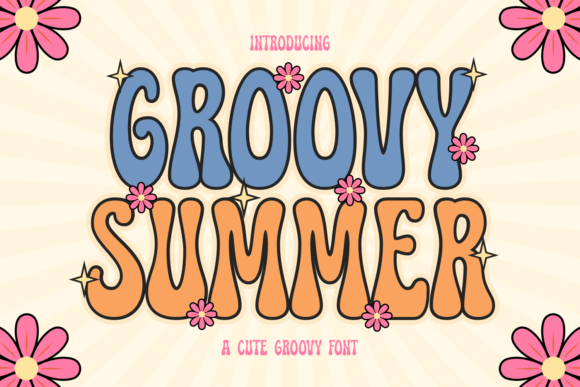
Groovy Summer Font: Elevate Your Designs with a Playful and Lively Typeface
Are you looking for a font that embodies the fun and energy of the summer season? Look no further than the Groovy Summer Font! This playful and lively display typeface is perfect for designers and crafters who want to add a touch of retro grooviness to their projects. In this article, we’ll dive into the features and benefits of the Groovy Summer Font, and explore how you can use it to elevate your designs.
What is Groovy Summer Font?
Groovy Summer is a display typeface that is designed to capture the essence of retro fun and energy. Its bouncy letterforms and dynamic strokes are reminiscent of the groovy styles of the 1960s and 1970s, but with a modern twist. The font is perfect for headlines, posters, and branding projects, where you want to make a bold statement and grab the attention of your audience.
Key Features of Groovy Summer Font
- Playful and lively design: The Groovy Summer Font features a playful and lively design that is perfect for summer-themed projects.
- Bouncy letterforms: The font’s bouncy letterforms add a touch of fun and energy to your designs.
- Dynamic strokes: The dynamic strokes of the font give it a sense of movement and playfulness.
- Retro grooviness: The font’s retro-inspired design is perfect for projects that require a touch of nostalgia.
- Easy to read: Despite its playful design, the Groovy Summer Font is easy to read, even at smaller sizes.
Benefits of Using Groovy Summer Font
So why should you use the Groovy Summer Font in your designs? Here are just a few benefits:
- Adds a touch of fun and energy: The Groovy Summer Font is perfect for designers who want to add a touch of fun and energy to their designs.
- Perfect for summer-themed projects: The font’s summer-inspired design makes it perfect for summer-themed projects, such as beach posters, summer festival flyers, and more.
- Versatile: The Groovy Summer Font can be used for a wide range of projects, from headlines and posters to branding and packaging.
- Easy to pair with other fonts: The font’s playful design makes it easy to pair with other fonts, allowing you to create unique and interesting typography combinations.
How to Use Groovy Summer Font in Your Designs
So how can you use the Groovy Summer Font in your designs? Here are a few ideas:
- Headlines and titles: Use the Groovy Summer Font to create bold and eye-catching headlines and titles.
- Posters and flyers: The font is perfect for posters and flyers, where you want to grab the attention of your audience.
- Branding and packaging: Use the Groovy Summer Font to add a touch of fun and energy to your branding and packaging.
- Social media graphics: The font is perfect for social media graphics, where you want to create engaging and eye-catching content.
Tips for Getting the Most Out of Groovy Summer Font
Here are a few tips for getting the most out of the Groovy Summer Font:
- Use it sparingly: While the Groovy Summer Font is playful and fun, it can be overwhelming if used too much. Use it sparingly to create emphasis and add visual interest.
- Pair it with other fonts: The Groovy Summer Font pairs well with other fonts, so don’t be afraid to experiment with different combinations.
- Experiment with colors: The font looks great in bright and bold colors, so don’t be afraid to experiment with different color combinations.
| Font Name | Groovy Summer Font |
In conclusion, the Groovy Summer Font is a playful and lively display typeface that is perfect for designers and crafters who want to add a touch of fun and energy to their designs. With its bouncy letterforms and dynamic strokes, the font is sure to capture the essence of retro grooviness. Whether you’re working on a summer-themed project or just want to add a touch of playfulness to your designs, the Groovy Summer Font is a great choice.